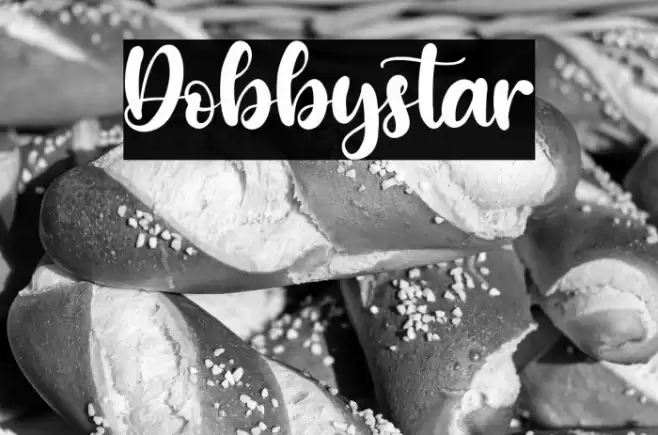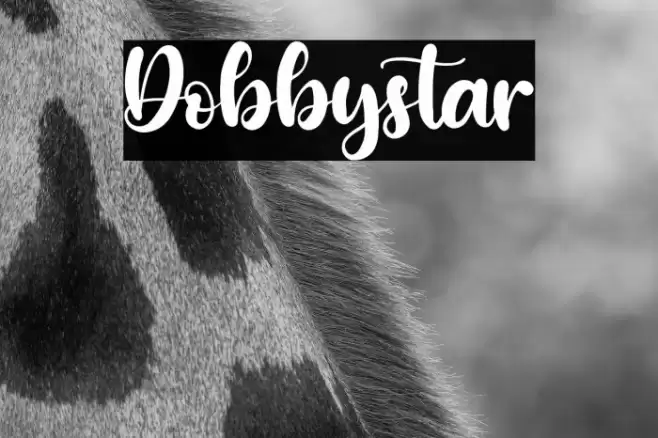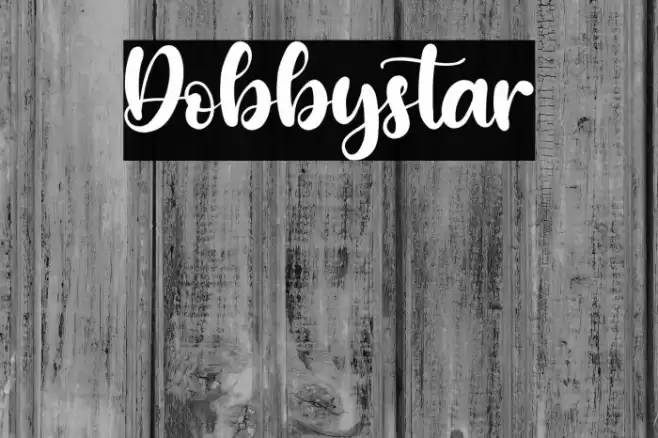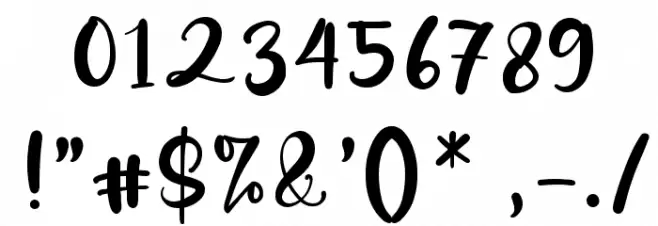
Dobbystar Font
Dobbystar Description
This font features a playful and elegant script style with a handwritten appearance. The letters are characterized by smooth, flowing curves and a consistent stroke width, giving it a harmonious and cohesive look. The uppercase letters are bold and expressive, with some featuring unique flourishes that add a touch of sophistication. The lowercase letters maintain a friendly and approachable feel, making the font versatile for various design applications. The numerals are clear and legible, while the special characters blend seamlessly with the overall style. This font is perfect for projects that require a personal and artistic touch.
A playful and elegant script font with a handwritten style from Uncategorized fonts.
- Proposed Projects: Ideal for wedding invitations, greeting cards, branding, and social media graphics.
- Use Case: Logos, Headlines, Invitations